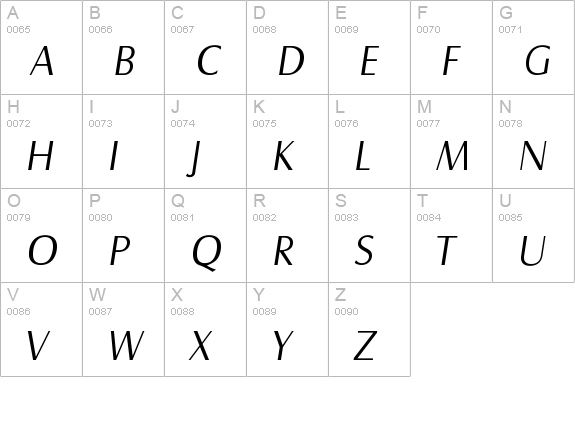
Salzburg-LightIta is a sleek and elegant font that exudes a sense of sophistication and charm. Its delicate curves and slender letterforms make it perfect for projects that require a touch of refinement. This font is the epitome of modern grace, capturing attention effortlessly with its effortless beauty. With its light and italicized variation, Salzburg-LightIta adds a touch of elegance to any design. Whether used for branding, logos, invitations, or headlines, this font will elevate your project to the next level with its refined and luxurious aesthetic. One of the most appealing aspects of Salzburg-LightIta is that it is available for free. Yes, you read that right - this stunning font can be downloaded at no cost from FontsMarket.com. This means that you can enhance your projects without breaking the bank, making it a perfect choice for designers, creatives, and anyone looking to add a touch of sophistication to their work. With Salzburg-LightIta, you don't have to compromise on quality or style. Its clean and modern design, combined with its availability as a free download, makes it a must-have font for any designer's toolkit. So why wait? Head over to FontsMarket.com and download Salzburg-LightIta today, and let your creativity shine with this beautiful and freely accessible typeface.